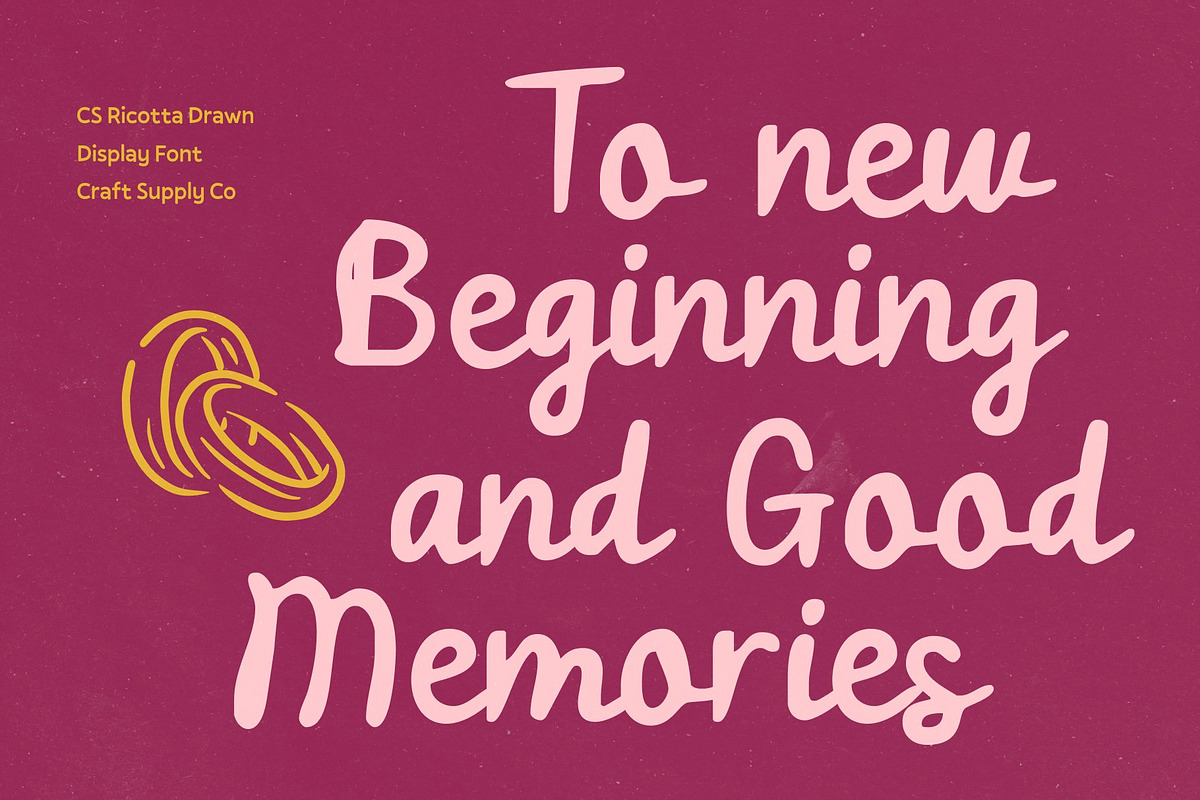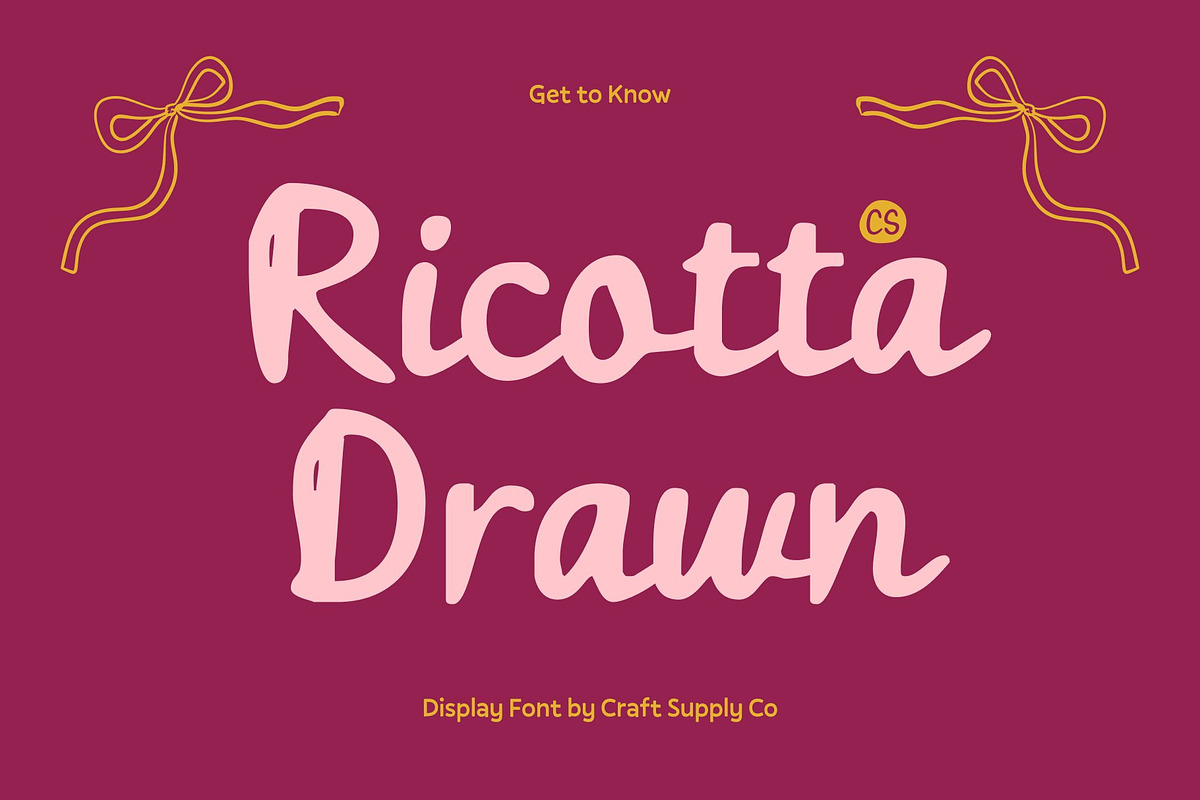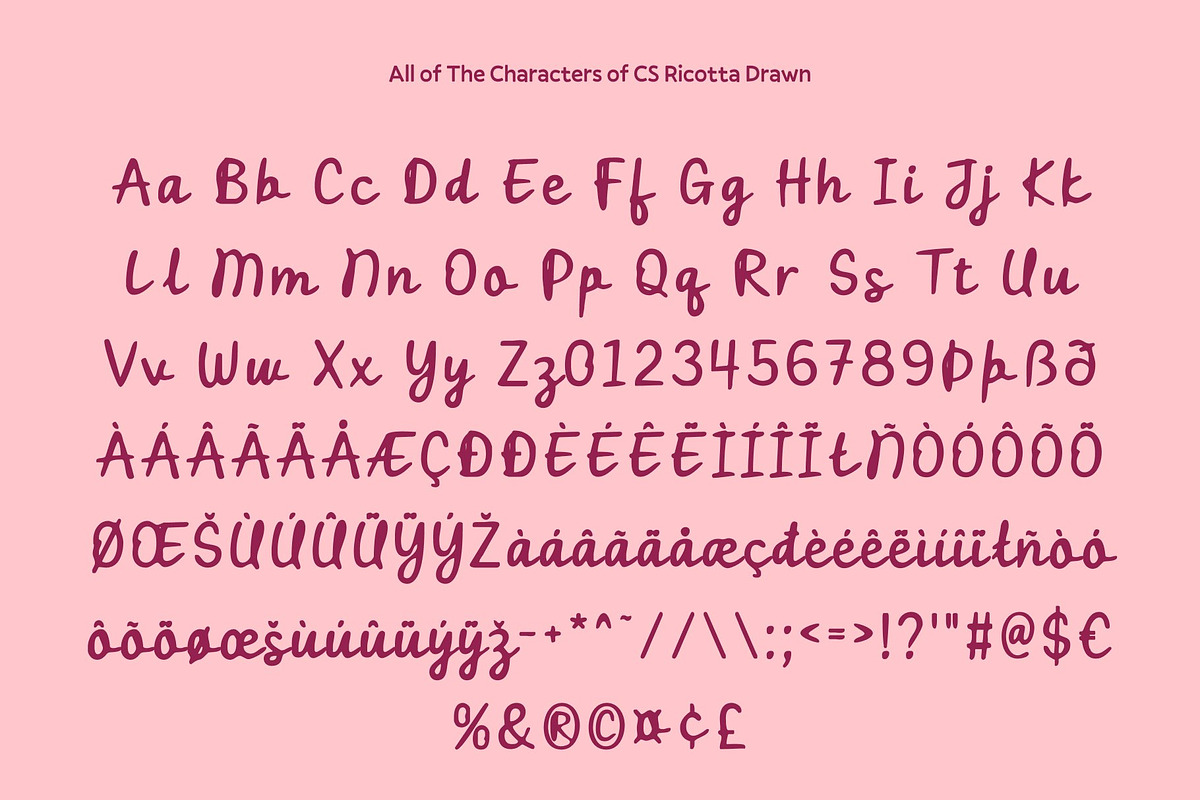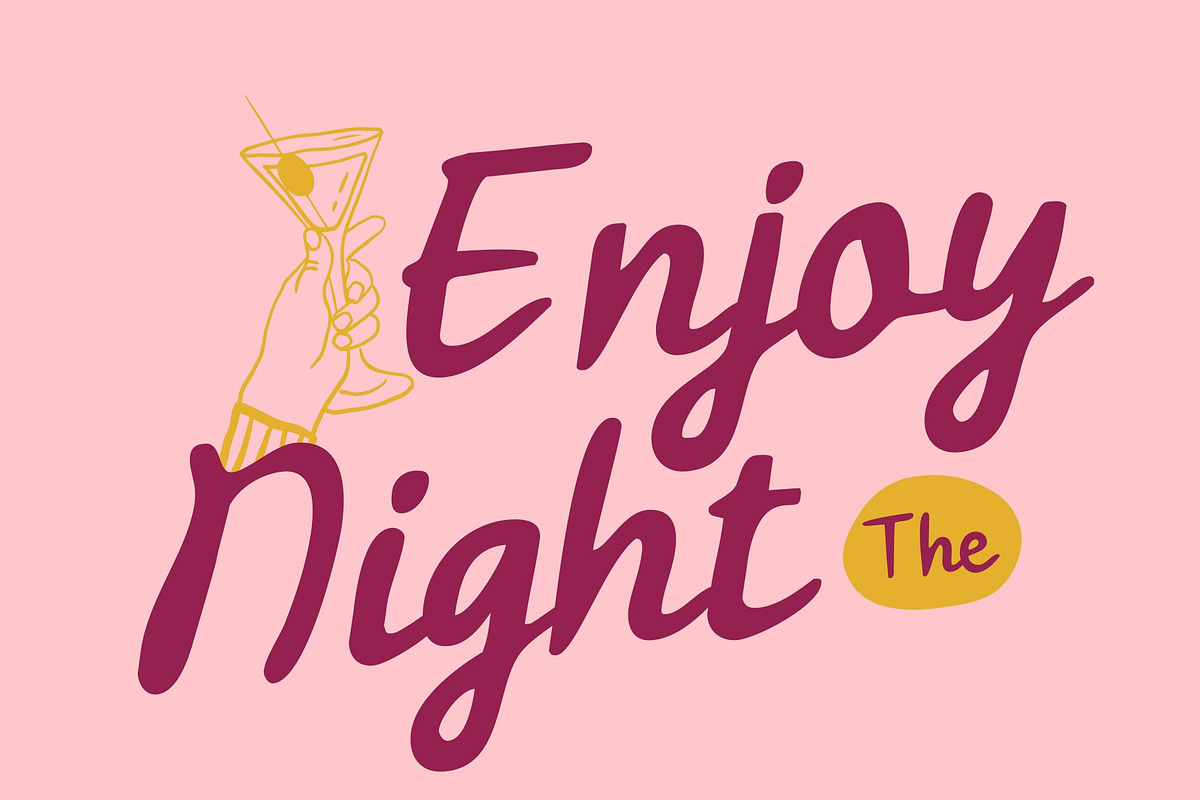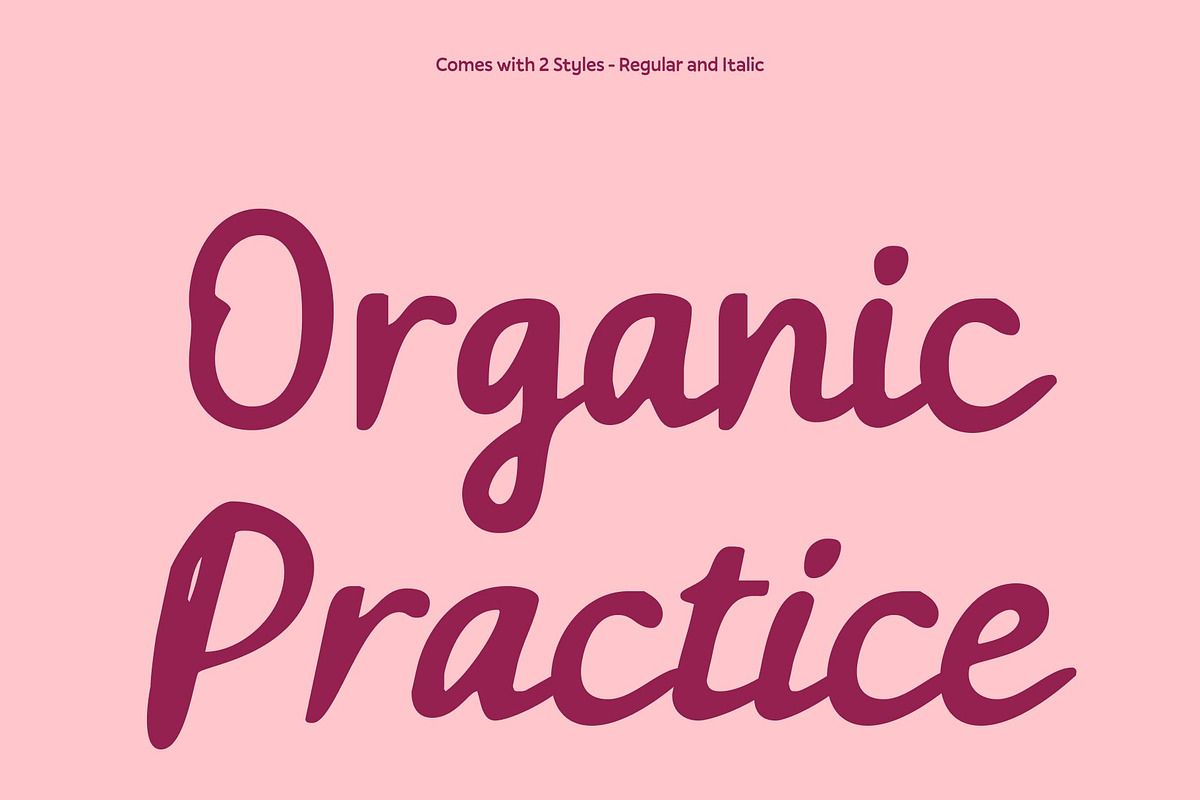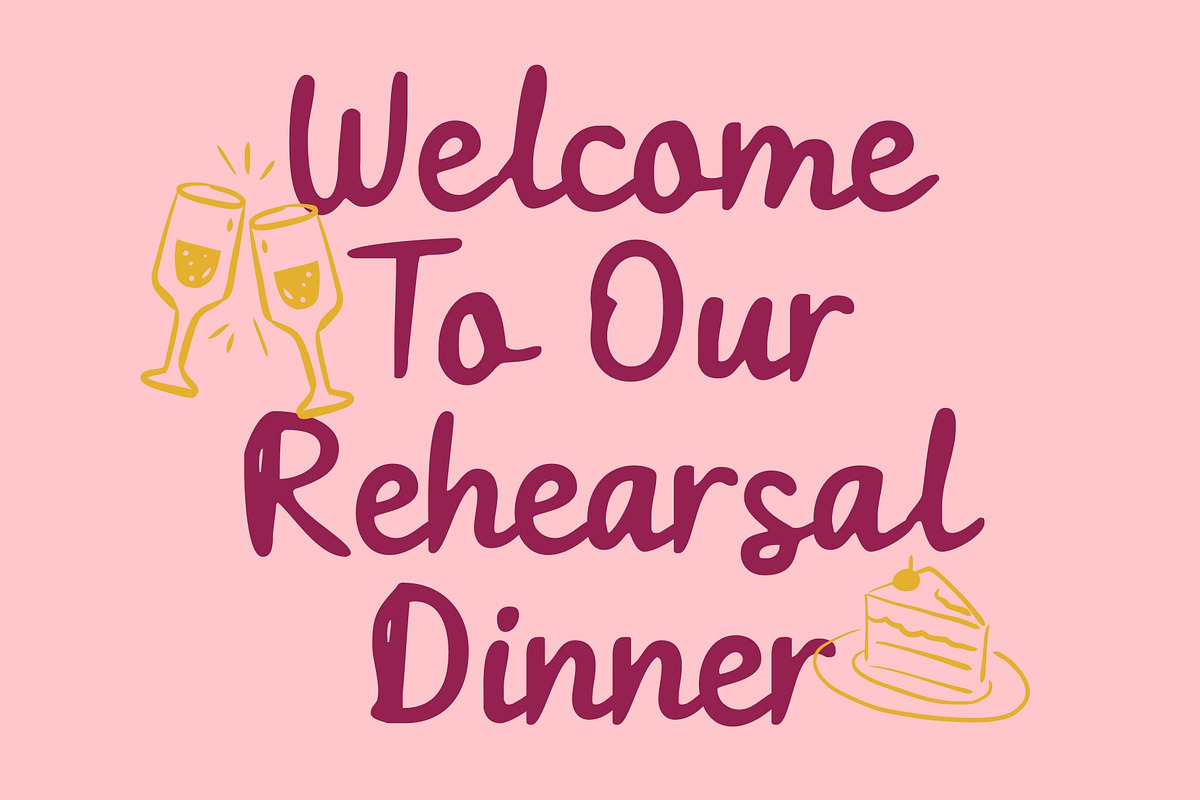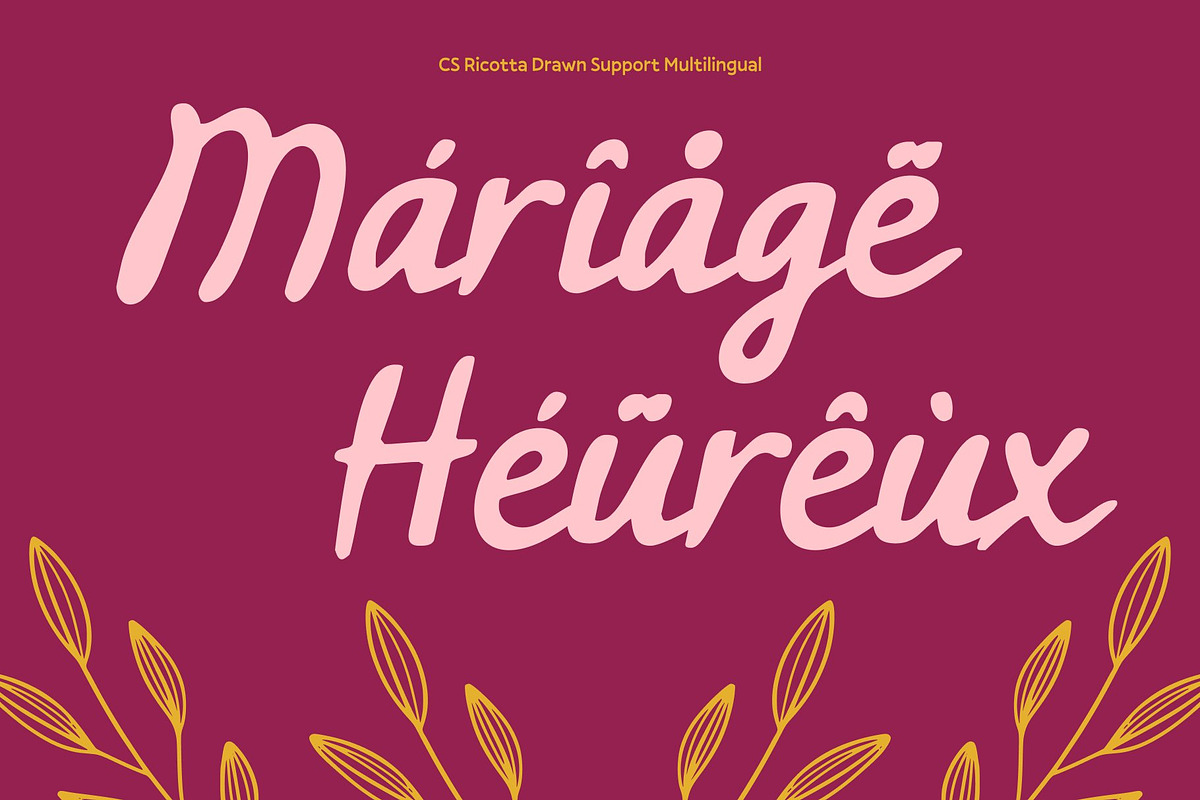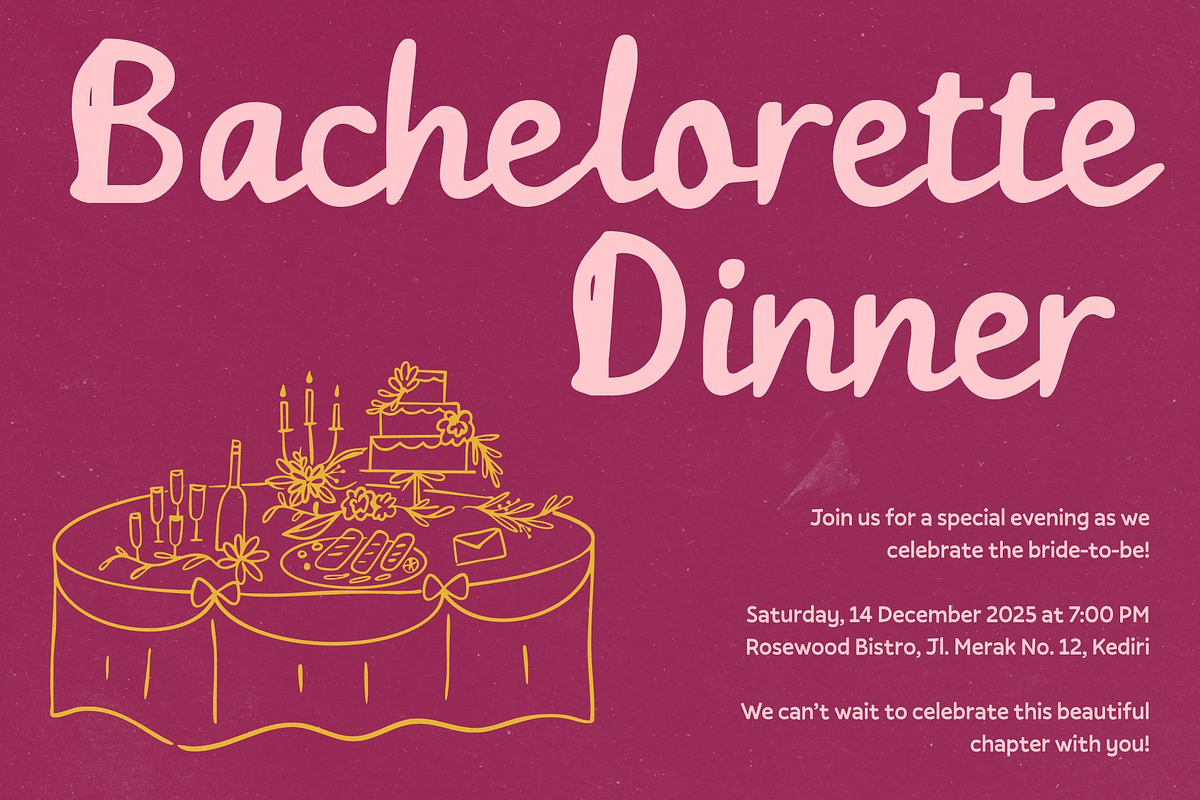
CS Ricotta Drawn
CS Ricotta Drawn – Handwritten Script Font with Romantic Curves
Elegant, Flowing Hand-Drawn Design This is a graceful, hand-drawn script font that captures the beauty of natural handwriting with a refined, polished finish. Its flowing curves and stylish strokes create a timeless, sophisticated aesthetic, perfect for projects that require elegance and charm.
Romantic and Feminine Character With its soft, romantic personality, this font conveys warmth, intimacy, and emotion. Each letter moves delicately across the line, giving designs a feminine, elegant feel. Its handcrafted details add subtle personality, making every project feel unique and heartfelt.
Perfect for Weddings, Fashion, and Luxury Branding Ideal for wedding invitations, greeting cards, fashion branding, and luxury editorial layouts, this font adds a touch of refinement and romance. Its flowing forms make it perfect for headlines, signatures, or decorative text that demands attention and beauty.
Distinctive Hand-Drawn Personality This font stands out with its handcrafted, artistic quality, giving your designs a memorable and expressive voice. Its unique curves and romantic style ensure that your work is elegant, personal, and visually captivating ideal for projects that aim to impress with style and sophistication.